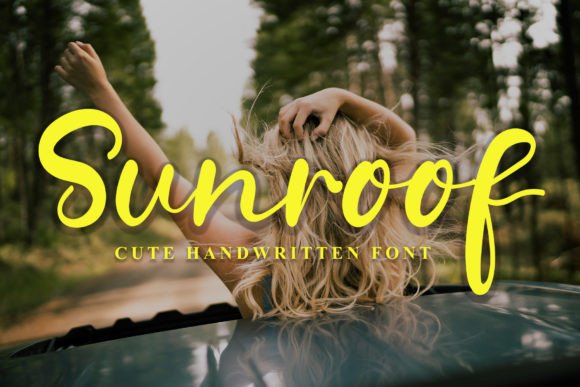
Dive into a world of handwritten enchantment with Sunroof Font, the crown jewel of PiPi Creative! This font is the epitome of elegance and charm, flowing like a gentle stream across your designs. Crafted with a flair for the timeless, Sunroof Font boasts a distinctive style that will leave your creations basking in its unique beauty.
Step into a realm of sophistication and let Sunroof Font cast its spell on your projects. Its delicate strokes and graceful curves will transform ordinary words into captivating expressions, adding a touch of whimsical flair to every line. With Sunroof Font at your fingertips, you'll discover a treasure trove of possibilities, from heartfelt Christmas greetings to enchanting invitations that ignite imaginations.
Unleash your creativity and let Sunroof Font lead you on an artistic odyssey. Whether you're designing enchanting logos, captivating branding, or heartfelt social media posts, this font will become your steadfast companion, guiding you towards captivating designs that resonate with your audience. Experience the allure of Sunroof Font and unlock the true potential of your creative vision.
With Sunroof Font as your muse, you'll find endless opportunities to create designs that capture attention and make a lasting impression. Its versatility knows no bounds, making it the perfect choice for a diverse range of projects, from heartwarming personal messages to elegant wedding invitations. Sunroof Font is your gateway to a world of captivating designs that will leave your audience spellbound.
So, embark on a journey of creativity with Sunroof Font today and unlock the magic within your designs. Let its elegant strokes and timeless charm guide you towards captivating creations that reflect your unique style and vision. Embrace the beauty of Sunroof Font and witness the transformation of your ordinary designs into masterpieces that captivate and inspire.